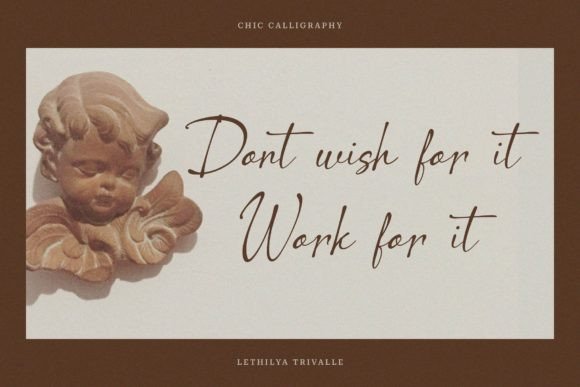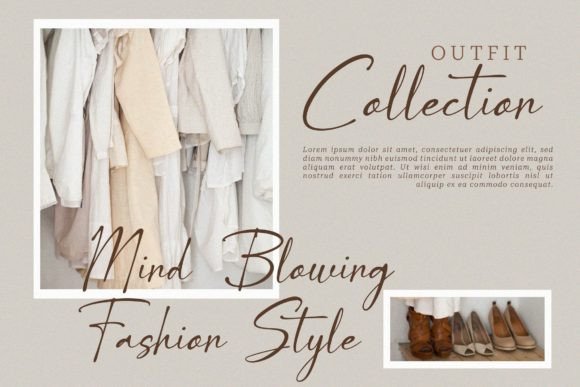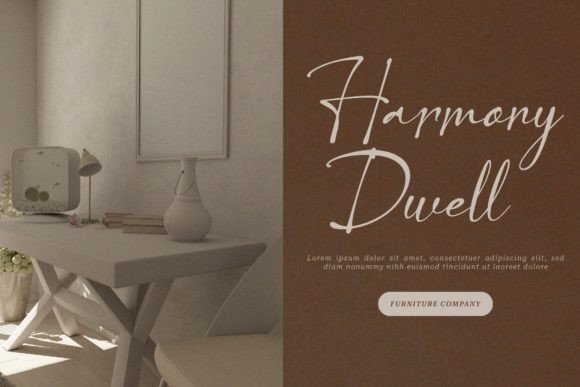
Introduction to Lethilya Trivalle Font
Lethilya Trivalle | Casual Chic Script suitable for any projects such as logos, branding projects, homeware designs, product packaging, mugs, quotes, posters, shopping bags, t-shirts, book covers, name cards, invitation cards, greeting cards, labels, photography, watermark, special events, and all your other lovely projects that need a Casual Chic Script taste.
Key Features of Lethilya Trivalle Font
Why Choose Lethilya Trivalle Font?
Lethilya Trivalle Font offers exceptional quality and versatility, making it a valuable addition to your design toolkit. Whether you’re creating for personal projects or commercial use, Lethilya Trivalle Font delivers professional results.